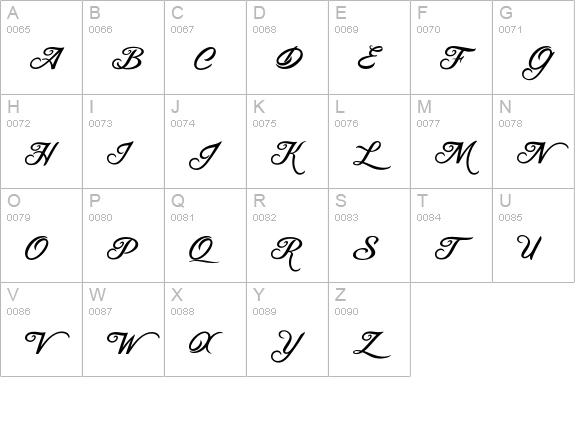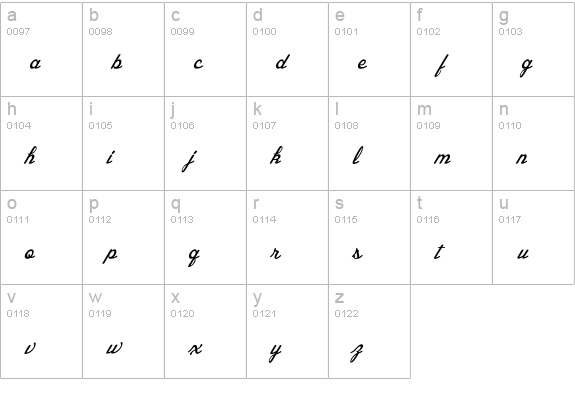
Blessed Day is a free for personal use font in the Fancy > Decorative category. It has been downloaded 242 times and is available for Windows, Mac and Linux.
Introducing Blessed Day, a stunningly beautiful font that will bring an air of elegance and sophistication to any project. This font is the epitome of grace and charm, with its delicate curves and intricate details. Its unique and distinctive design makes it perfect for a wide range of applications, from wedding invitations to branding projects. Blessed Day is not only visually pleasing but also incredibly versatile. It effortlessly adapts to different styles and contexts, making it suitable for both formal and informal occasions. Whether you're creating a romantic wedding invitation or a trendy logo, this font will add a touch of sophistication and class. One of the best things about Blessed Day is that it is free! Yes, you read that right. This incredible font is freely available to download at FontsMarket.com. This means that you can enjoy all the beauty and elegance of Blessed Day without spending a dime. It's a rare find in the world of typography, where quality fonts often come with a hefty price tag. By offering Blessed Day for free, FontsMarket.com is making high-quality design accessible to everyone. No matter your budget or project, you can now have access to a font that will elevate your creations to the next level. Whether you're a professional designer or a passionate hobbyist, Blessed Day is a must-have addition to your font collection. So go ahead and download Blessed Day from FontsMarket.com today. Unleash your creativity and let this font inspire you to create stunning designs that will leave a lasting impression. With Blessed Day, every day will be a blessed day indeed.